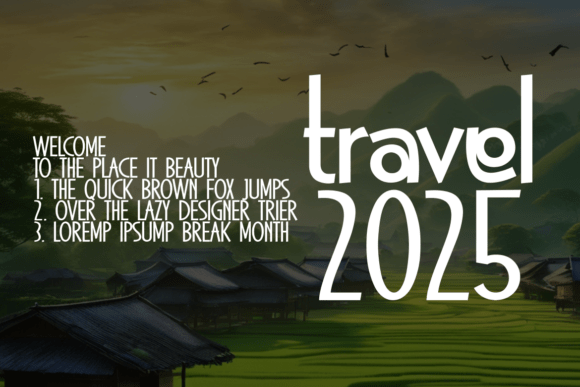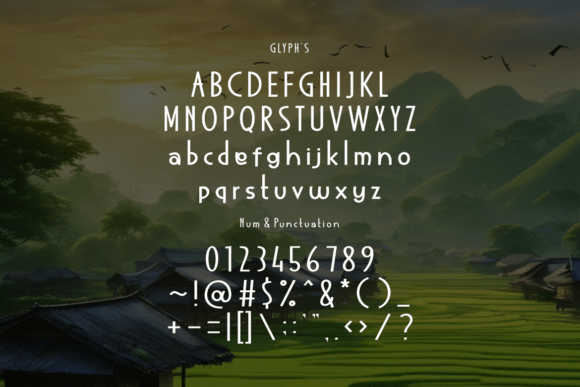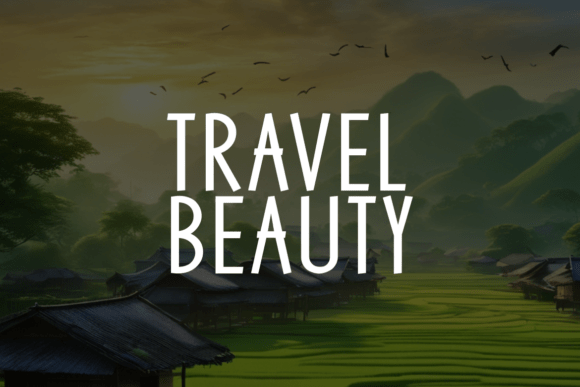
Unraveling the Secrets of the Fraverino Font
As designers, we’ve all been there – staring at a blank canvas, struggling to find the perfect font to bring our creative vision to life. But what if I told you that there’s a font that can transport you to a world of serenity and exploration? A font that seamlessly weaves together style and readability, making every word it adorns a masterpiece? Enter the Fraverino Font, a contemporary sans-serif wonder that’s about to revolutionize the world of typography.
Conceived for themes echoing travel, vacation, and tourism, the Fraverino Font is the ultimate companion for designers who crave flexibility and sophistication. Its clean design and bold integration of uppercase and lowercase lettering make it a valuable asset for branding, signposting, and crafting compelling promotional narratives. Whether you’re a seasoned designer or a creative enthusiast, the Fraverino Font is sure to leave an indelible mark on your work.
Fraverino Font Key Features
- Font Family: Fraverino Font is a sans-serif font family that includes multiple weights and styles.
- Size: The font family includes 12 weights, ranging from Extra Light to Extra Bold, with corresponding italic styles.
- Resolution: Suitable for both screen and print use at resolutions up to 1200 dpi.
- Unique Characteristics: Fraverino Font features a clean, modern design with a subtle rounded edge, making it suitable for a wide range of applications, including digital and print media.
- Language Support: Supports multiple languages, including Latin, Cyrillic, and Greek scripts.
Fraverino Font Review
Overall, I’d say the Fraverino Font is an interesting choice for designers looking for a unique font. It’s definitely got some unique features that set it apart from more traditional fonts. ✨ One of the things I appreciate about Fraverino is its wide range of styles and weights. It’s available in a variety of formats, making it a great option for both digital and print designs. ✨ The font’s modern, elegant feel also makes it a great choice for high-end branding and marketing materials.
That being said, there are a few limitations to consider. ⚠️ One of the main concerns I have with Fraverino is its limited character set. While it’s not a huge issue for most designers, it may be a problem for those who need to work with non-Latin scripts or require a large number of special characters. ⚠️ Additionally, some users have reported issues with font rendering on certain platforms.
- Unique, modern design
- Wide range of styles and weights
- Limited character set
- Font rendering issues on certain platforms
Overall, I’d say the Fraverino Font is a solid choice for designers who want a unique, high-end look. While it may have some limitations, its unique features and wide range of styles make it a great option for the right project.
Getting the Most Out of Fraverino Font
To get the most out of the Fraverino font, use it in designs that require a unique, elegant touch. It’s perfect for:
- Branding and logo designs
- Editorial and publishing projects
The Fraverino font is commonly used for:
- Creating a sense of sophistication and elegance
- Adding a touch of luxury to designs
- Creating unique and eye-catching headlines
Alternatives to Fraverino Font
Compared to Fraverino Font, Great Vibes Font has a more casual and relaxed feel, making it suitable for everyday use. While Fraverino Font has a more elegant and sophisticated appearance, Great Vibes Font is perfect for designs that require a more approachable tone.
Alex Brush Font is a elegant script font with a high-end feel. It’s perfect for designing luxury brands, high-end products, and other projects where a sophisticated tone is desired.
Compared to Fraverino Font, Alex Brush Font has a more refined and luxurious appearance, making it suitable for high-end designs. While Fraverino Font has a more playful and whimsical feel, Alex Brush Font is perfect for designs that require a more professional and elegant tone.
What is the character set of Fraverino Font?
Fraverino Font supports a wide range of languages, including Latin, Greek, and Cyrillic scripts. The font includes over 500 glyphs, including Latin, Greek, and Cyrillic letters, as well as punctuation and symbols. You can view the complete character set on the font vendor’s website.